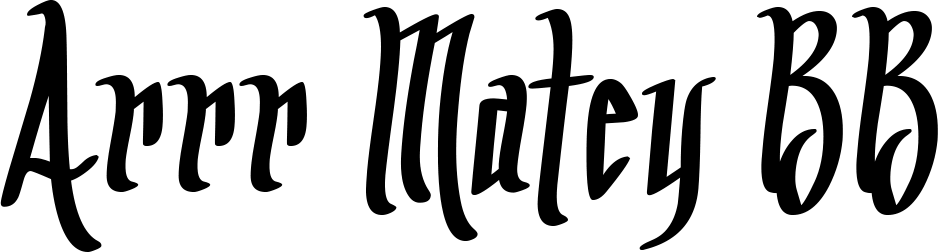
Arrr Matey BB Font
All aboard, cause we’re going to present you with a newly added pirate font. Unlike other pirate fonts, Arrr Matey BB is no more fun than violent and raw. Go with this one to make your posters, t-shirts, headings, and so on cooler and more pirate-y.